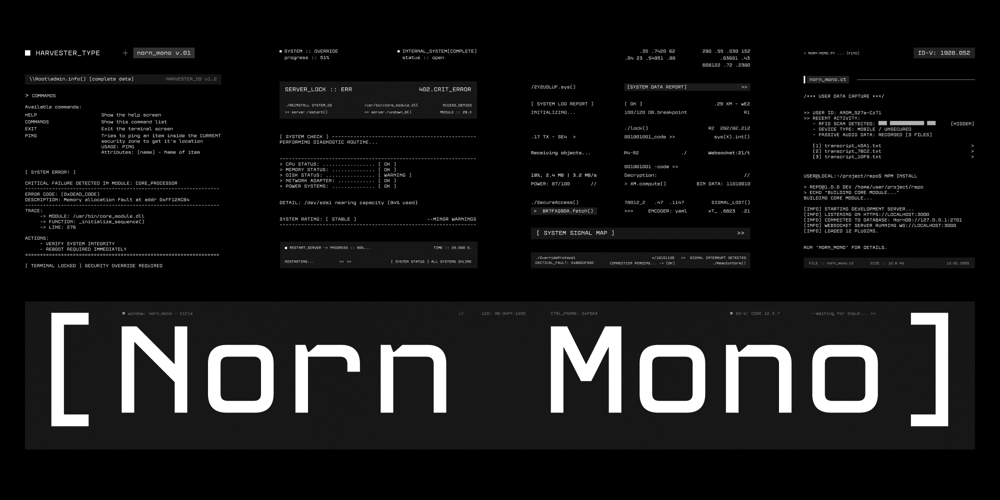
Norn Mono Font Family was designed by Eugene Bunin and published by Harvester Type. Norn Mono contains 5 styles and family package options. Norn Mono is a monospaced font with a technical character. Norn is suitable for completely different purposes: whether it’s programming, packaging design, FUI, in-game interface, logo or the main font on a website.Norn has the spirit of the future, combining sci-fi, futurism, cyberpunk, hi-tech and other trends.Great language support and font variability, a well-thought-out and tested font in many directions.The font application is universal. It’s a workhorse. Whether it’s poster design, clothing design, industrial design, HUD, font for brand identity and corporate identity, font for social networks.